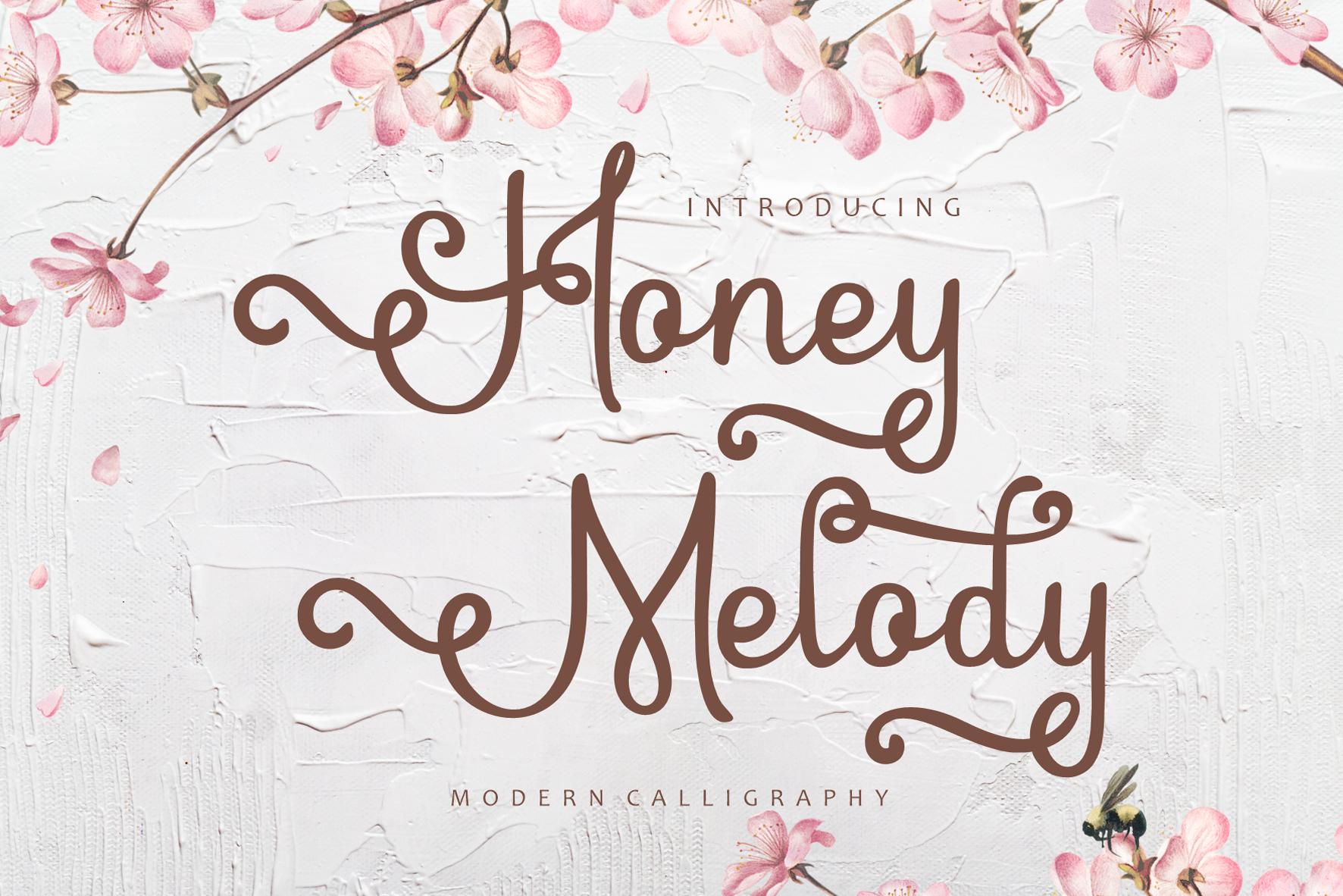
Honey Melody Font Description
Honey Melody is a chic, highly detailed and elegant handwritten font. It looks beautiful on a variety of designs requiring a personalized style, such as wedding invitations, thank you cards, weddings, greeting cards, logos and so on.